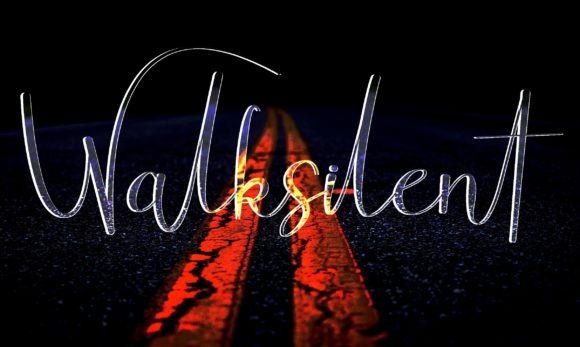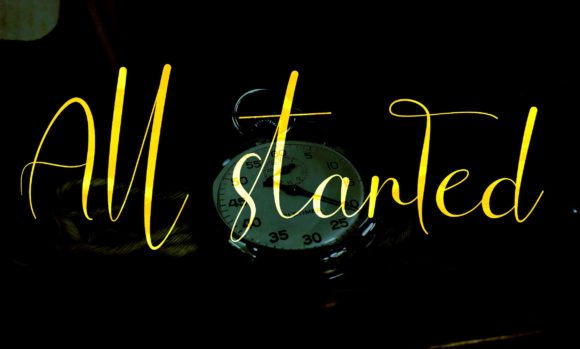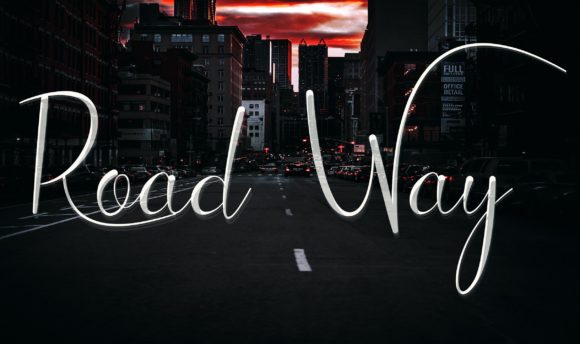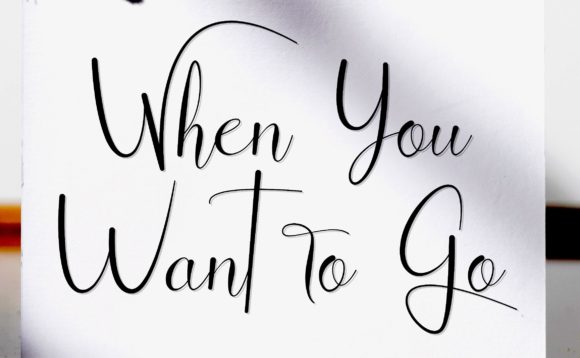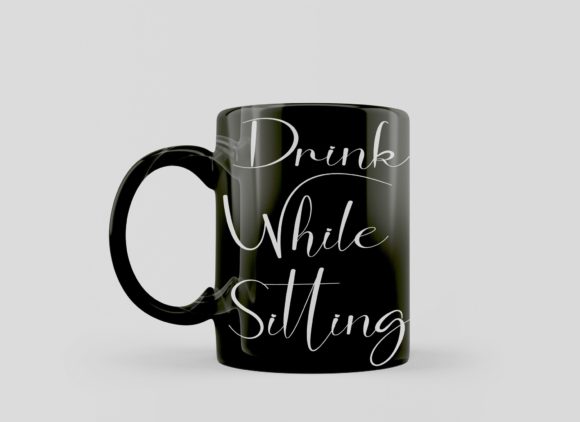
About Walksilent Font
Walksilent feels equally charming and elegant. It looks stunning on wedding invitations, thank you cards, quotes, greeting cards, logos, business cards and every other design which needs a handwritten touch.